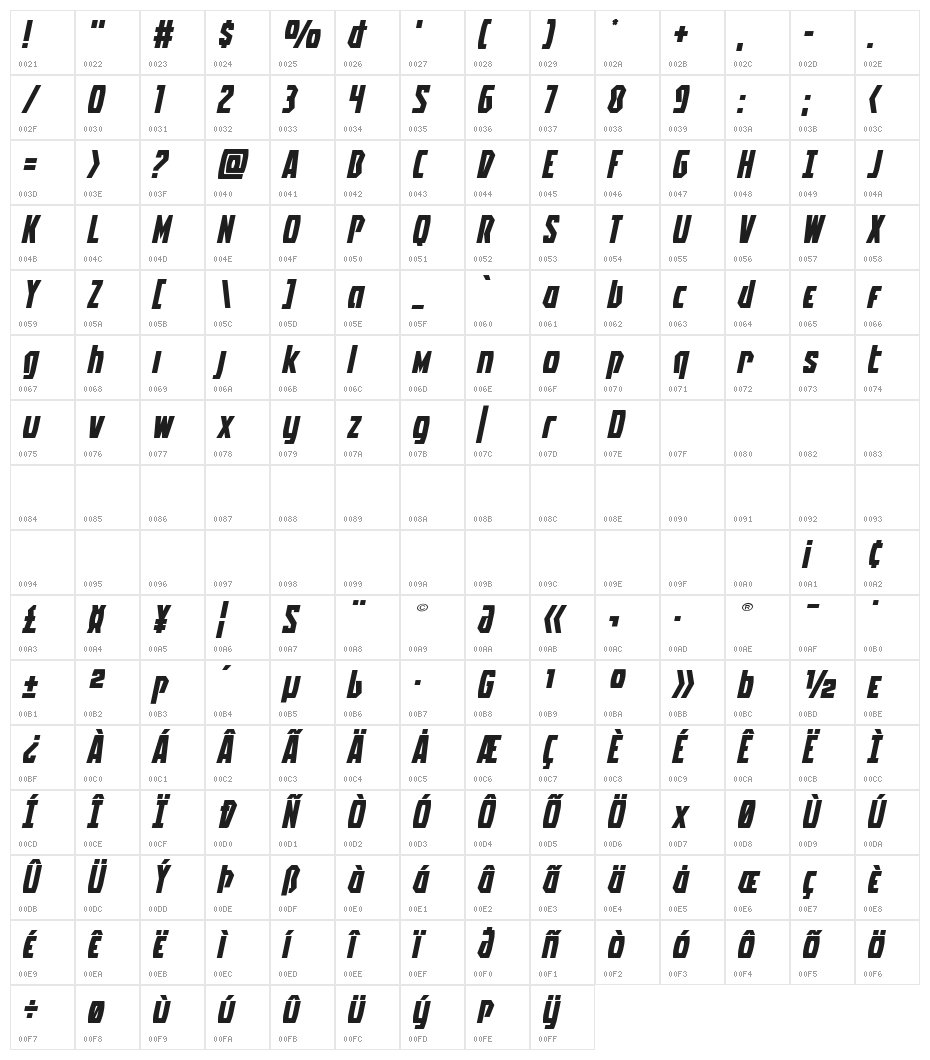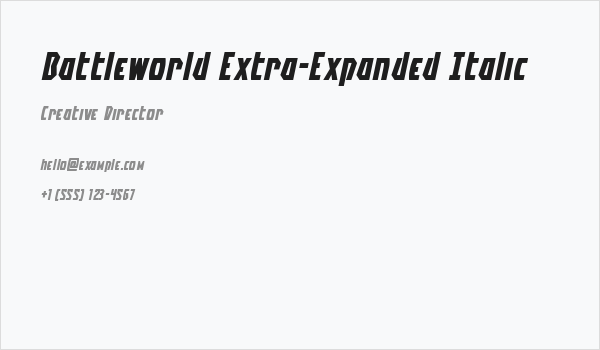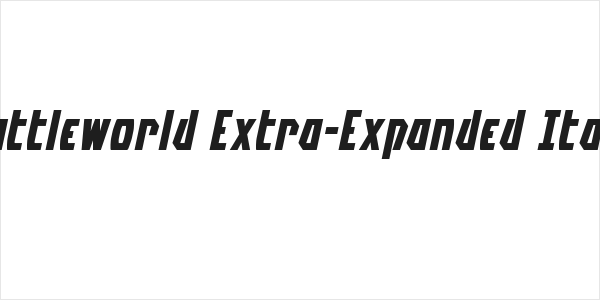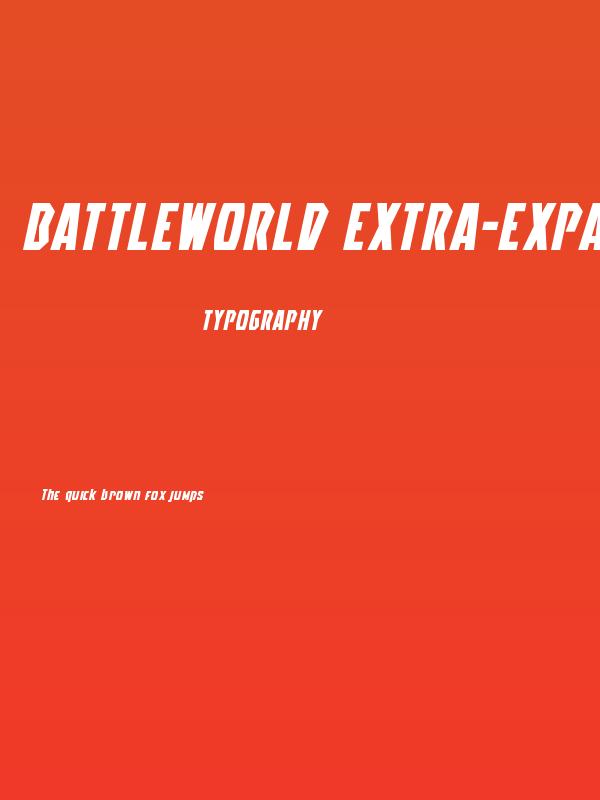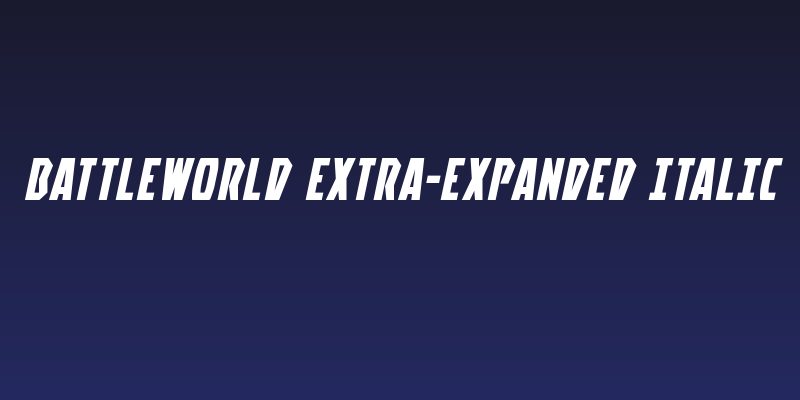
Battleworld Extra-Expanded Italic Font
Battleworld Extra-Expanded Italic Description
This font features a bold and dynamic design with a distinctly angular and geometric style. The characters are expanded and italicized, giving them a forward-leaning, energetic appearance. The uppercase and lowercase letters maintain a consistent style, with sharp edges and a strong presence. The numbers and special characters follow the same design principles, ensuring uniformity across all glyphs. This font is ideal for projects that require a modern and impactful look, such as sports branding, action-themed posters, or video game titles.
| Proposed Projects | Ideal for sports branding, action-themed posters, video game titles, and dynamic logos. |